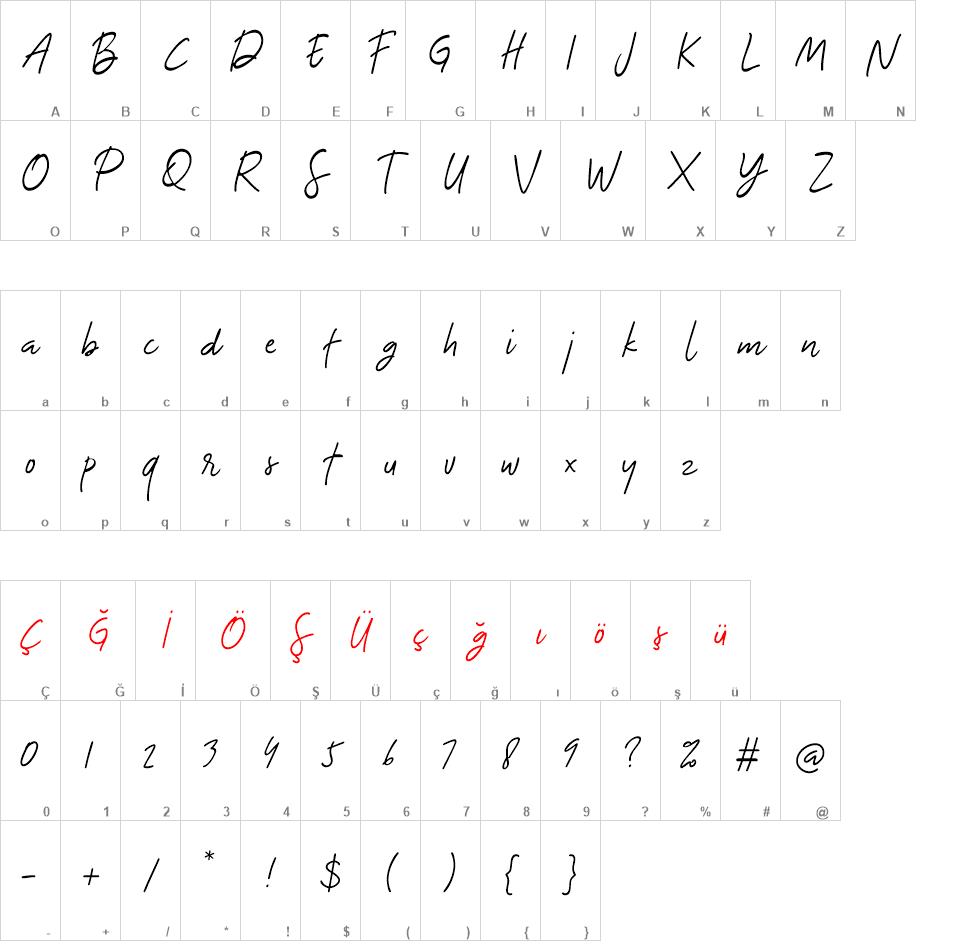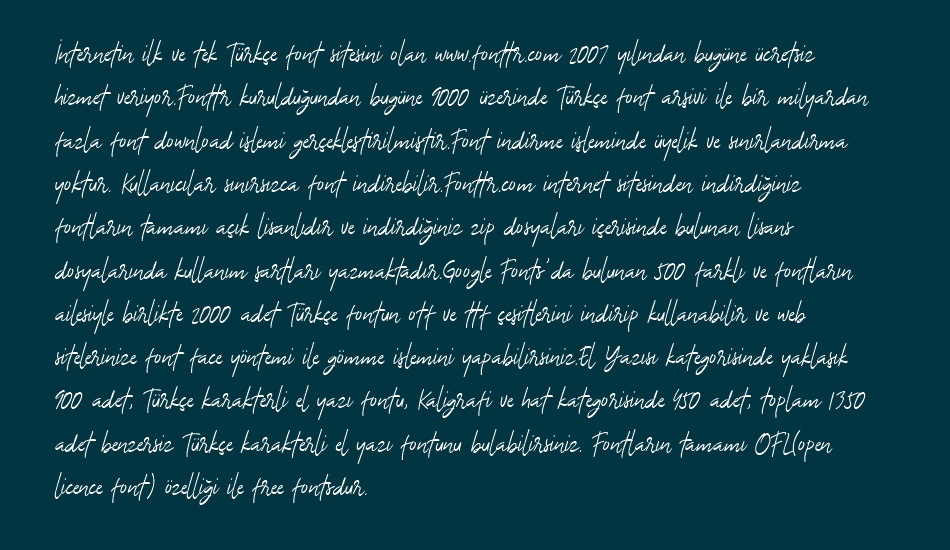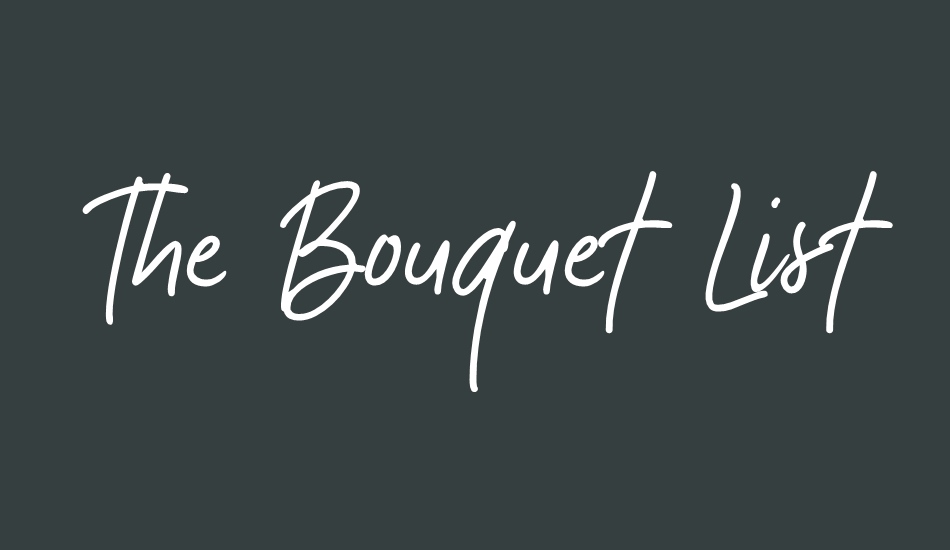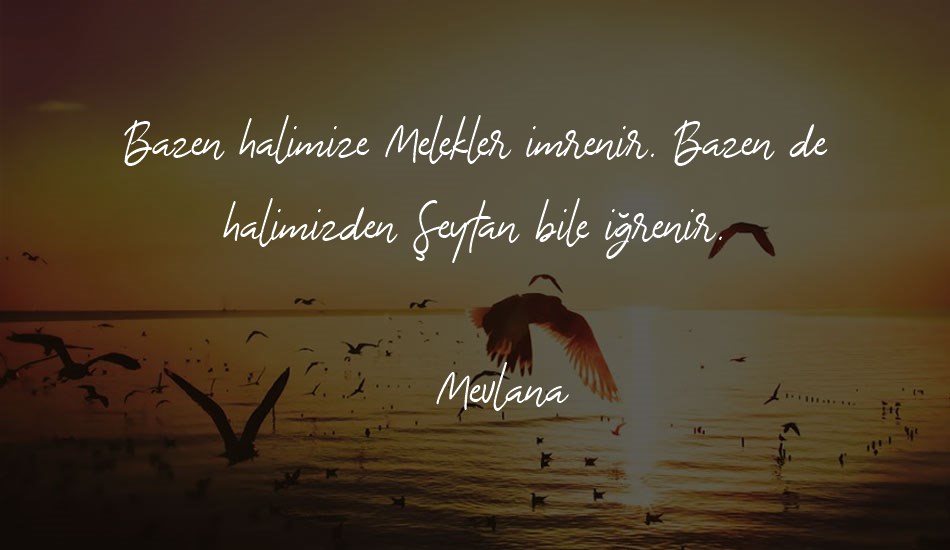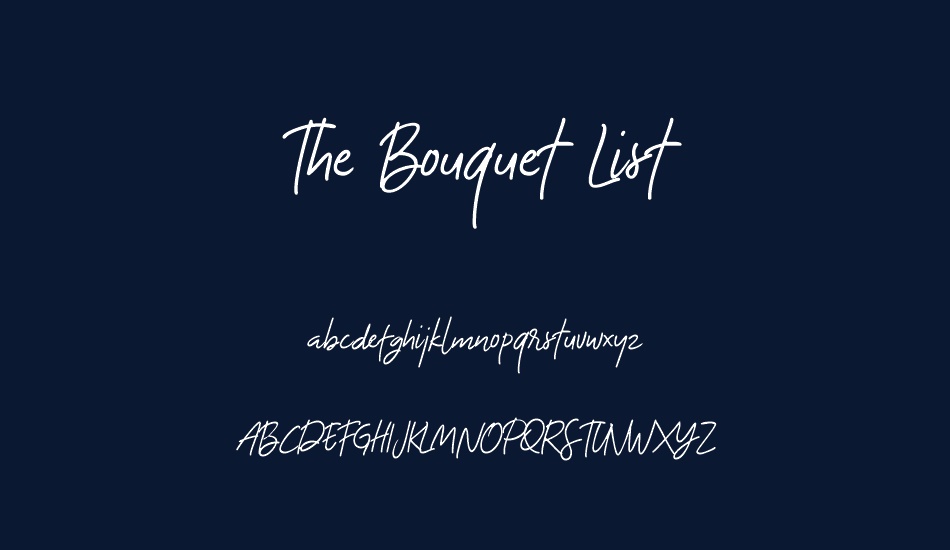
The Bouquet List font
This is the demo version of the Bouquet List handwriting font. It means that this version DOES NOT have 70+ pairs of ligatures, swashes, and extras that can make your words looks organic and authentic, just like the natural handwriting.